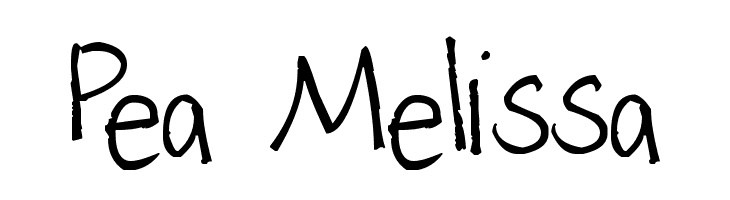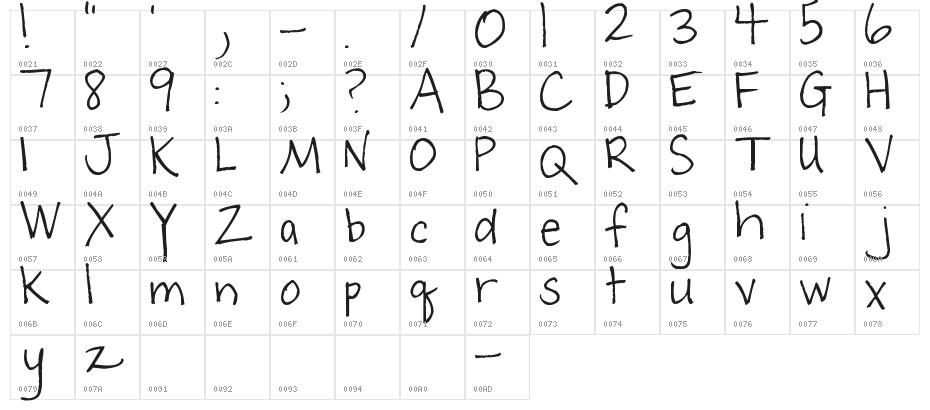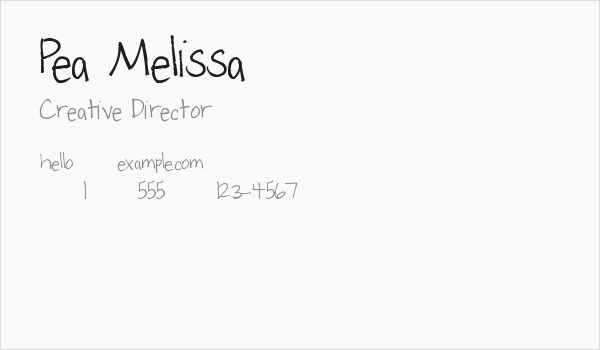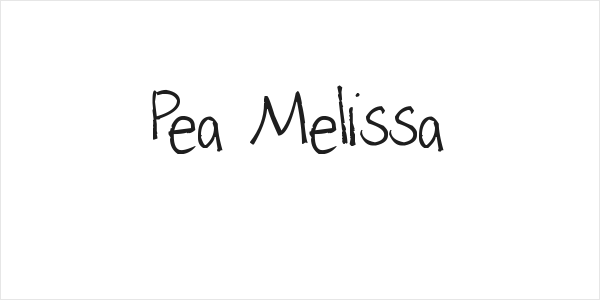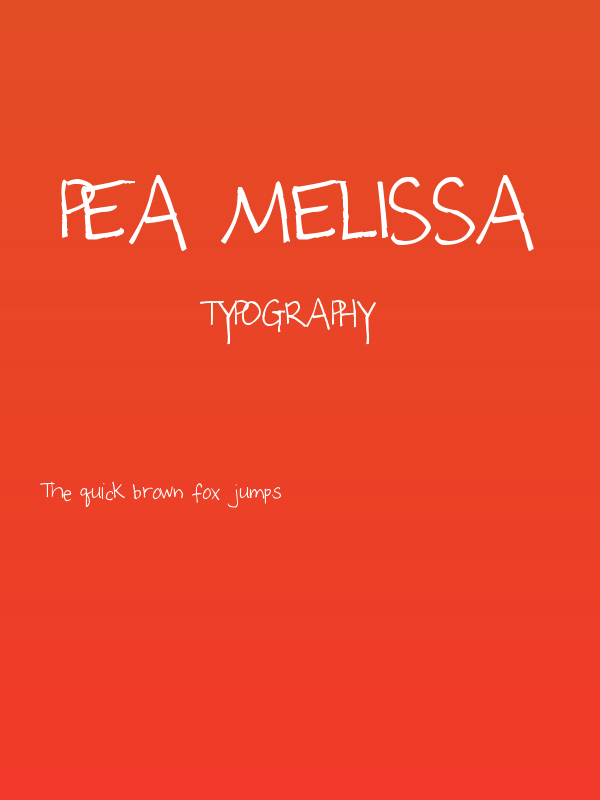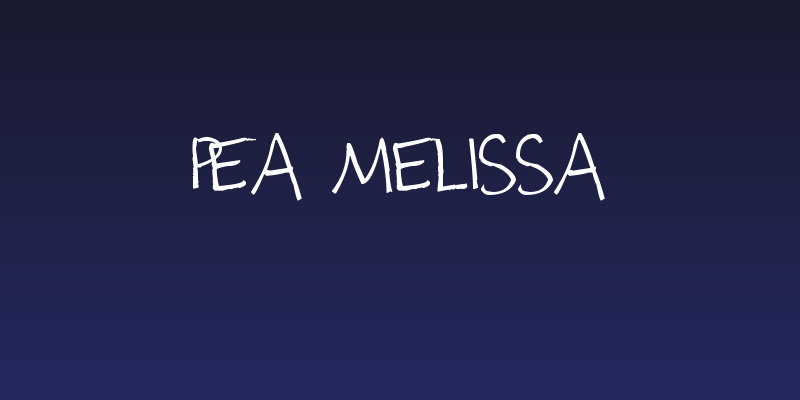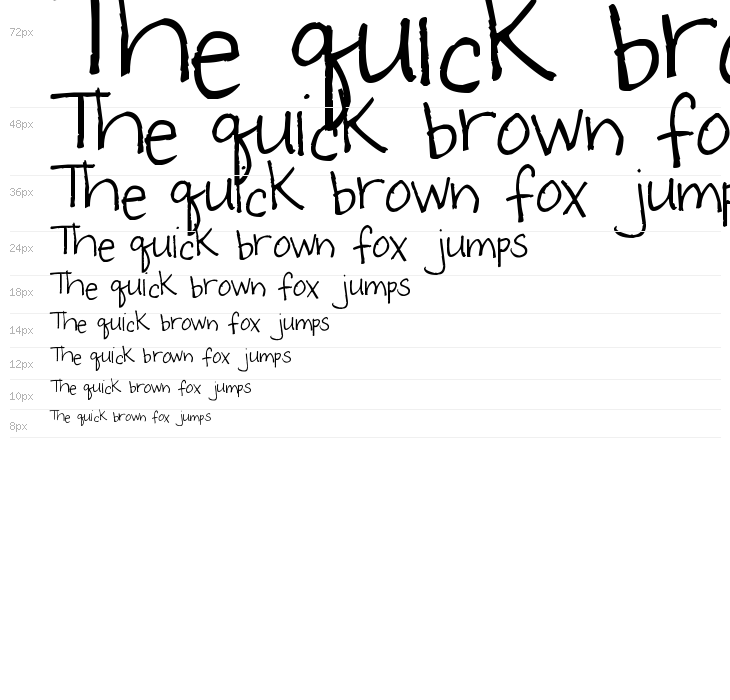
This font exudes a casual and playful handwritten style, characterized by its uneven strokes and slightly irregular letterforms. The uppercase and lowercase letters maintain a consistent flow, giving it an approachable and friendly appearance. The numbers and special characters follow the same informal style, making it suitable for projects that require a personal touch. The overall look is reminiscent of handwriting with a marker, adding a sense of authenticity and warmth.
| Use Case | Logos, Informal text, Personal projects |
| Proposed Projects | Ideal for personal notes, greeting cards, children's books, and informal branding. |